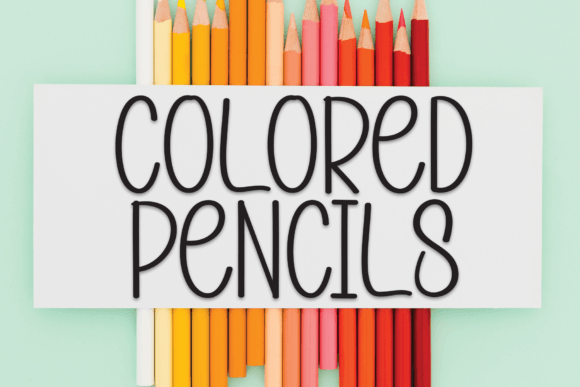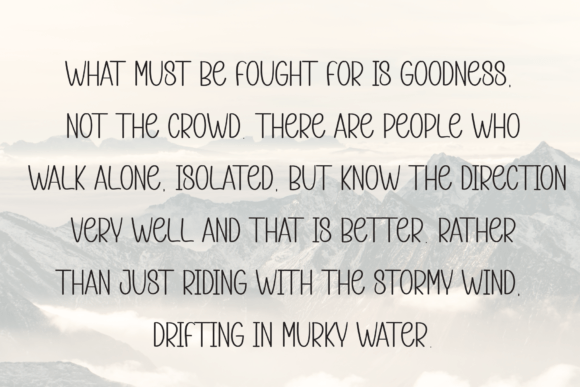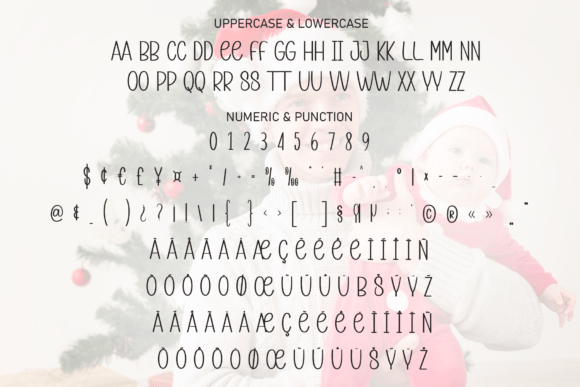
The Magic of Daddy Santa Font: A Designer’s New Best Friend
I still remember the holiday season a few years ago when I was working on a project for a client who wanted a custom Christmas card design. I had all the elements ready – the graphics, the text, and the colors – but something was missing. That’s when I realized I needed the perfect font to bring it all together. After hours of searching, I stumbled upon the Daddy Santa font, and it was love at first sight! ✨
This casual handwritten font has a relaxed and friendly vibe that instantly captured the essence of the holiday season. Its natural, flowing strokes added a warmth and authenticity to my design that I hadn’t achieved before. In this article, I’ll share my experience with the Daddy Santa font, its features, and how you can make the most of it in your designs.
An Honest Review of Daddy Santa Font
- ✨ The effortless, charming touch it adds to any design
- ✅ Perfect for personal projects, social media, and invitations
- 🎉 Natural, flowing strokes that create a friendly vibe
- 👍 Highly legible, even at smaller font sizes
While the Daddy Santa font is amazing, there are a few things to keep in mind: ⚠️
- 🤔 It may not be the best choice for formal or corporate designs, as it has a very casual feel
- ⚠️ Some letters may not be suitable for body text, especially at smaller font sizes
The Story Behind Daddy Santa Font
The Daddy Santa font was designed by a talented type designer who wanted to create a font that captured the essence of the holiday season. Inspired by traditional handwritten fonts, the designer added a modern twist to create a unique and charming font.
Q: What type of projects is the Daddy Santa font best suited for?
A: The Daddy Santa font is perfect for personal projects, social media graphics, invitations, and other creative endeavors that require a friendly, casual touch.